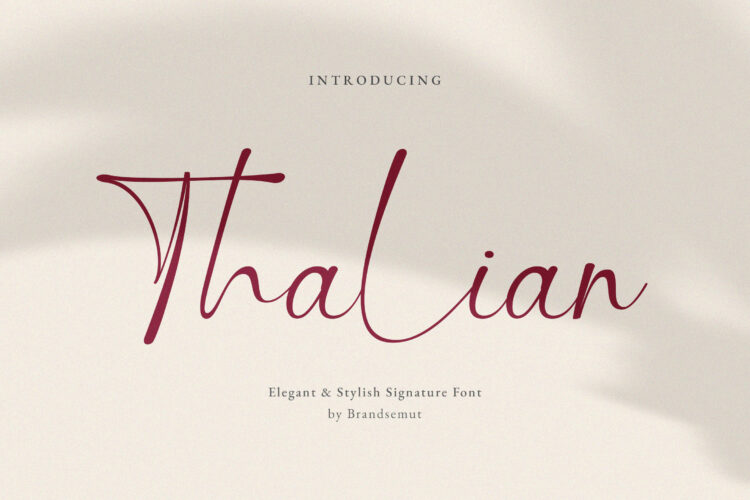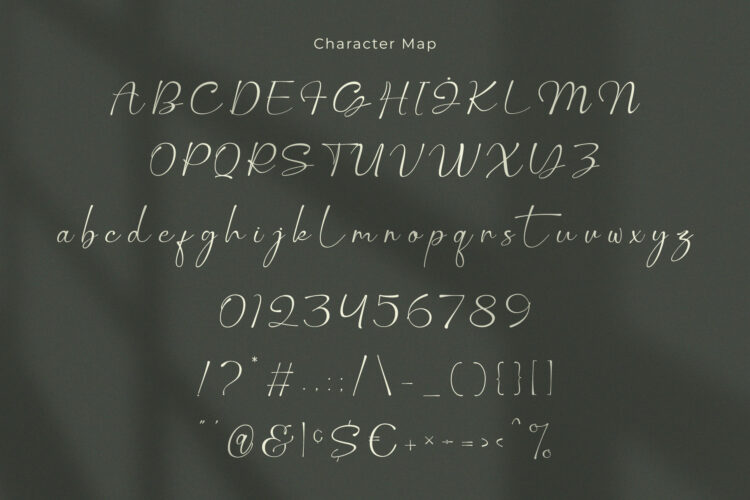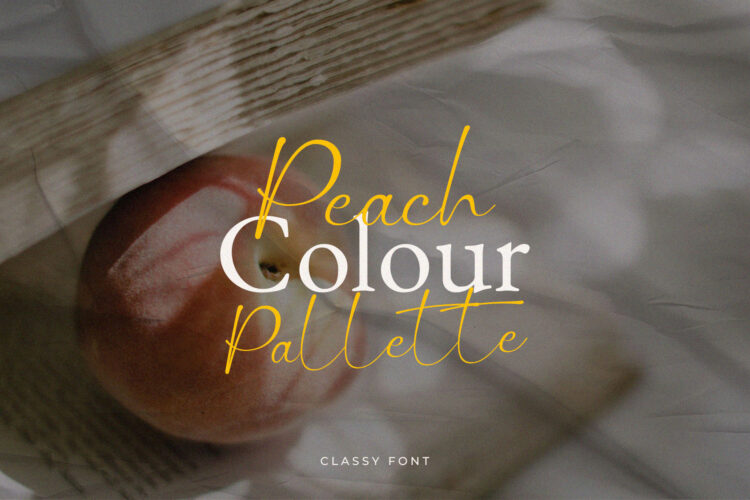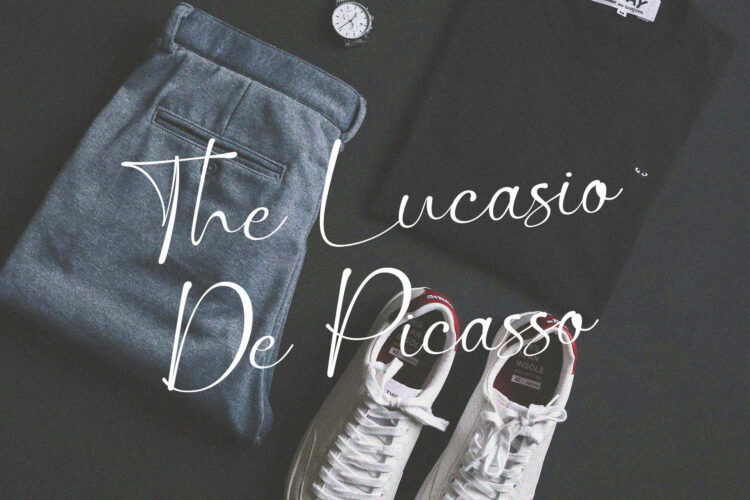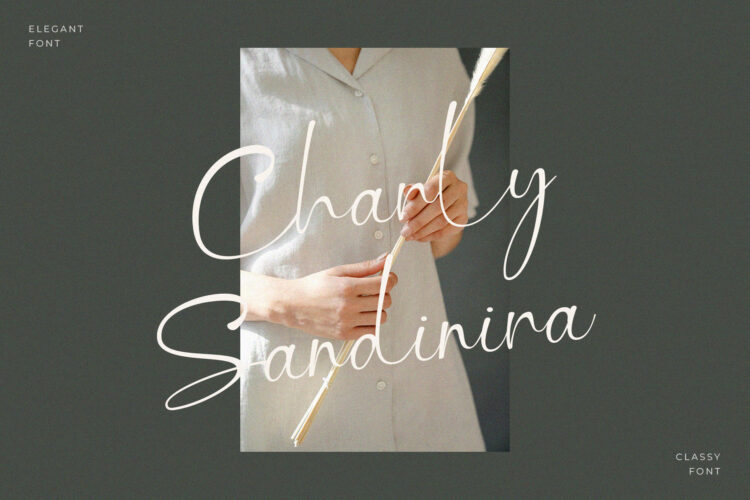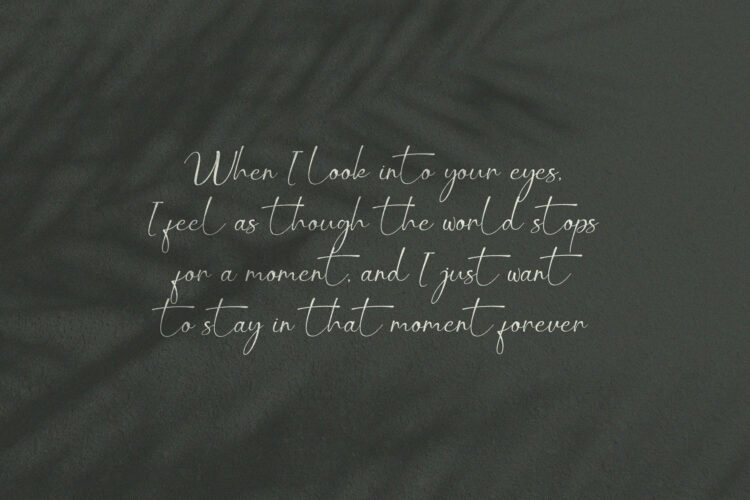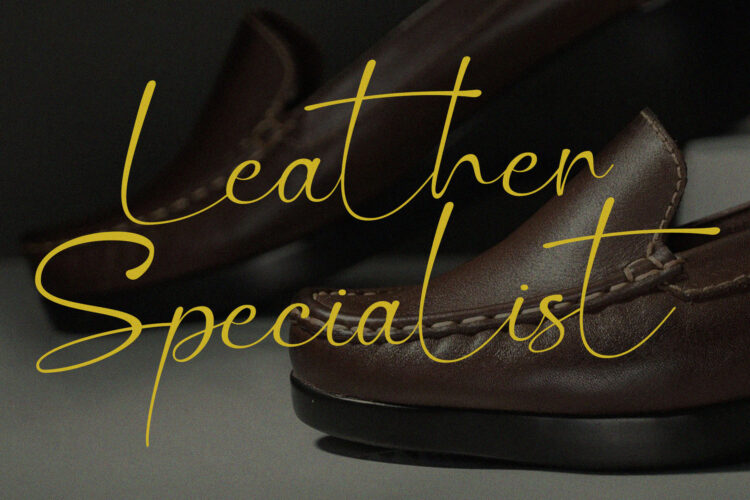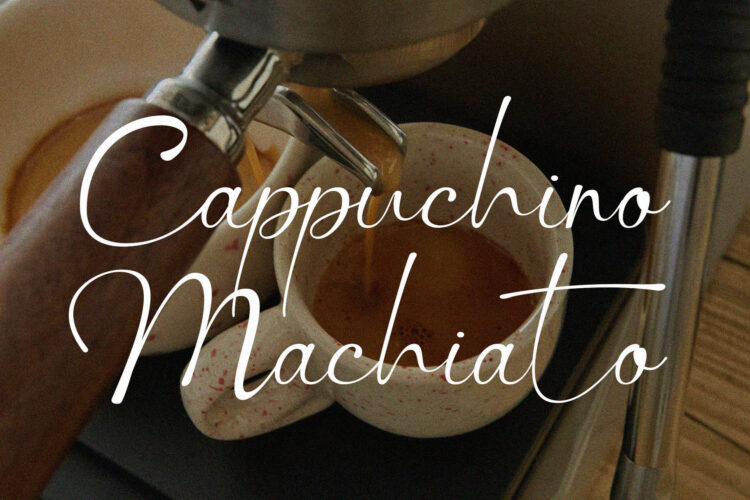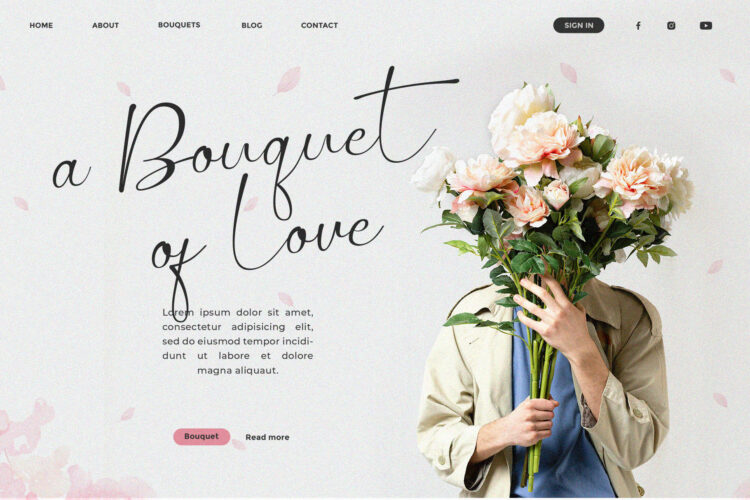
Introducing the new Thalian Signature Font is a elegant and stylish handwritten script, that you can use to perfect your design.
You will get full set of lowercase and uppercase letters, multilingual, numerals and punctuation.
Thalian – Elegant & Stylish Signature Font